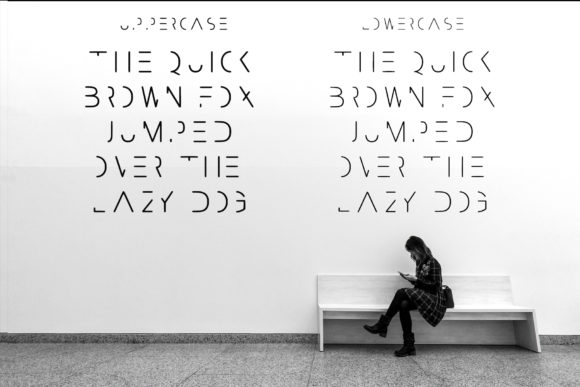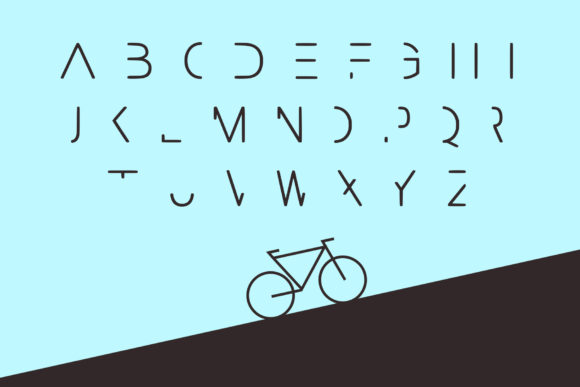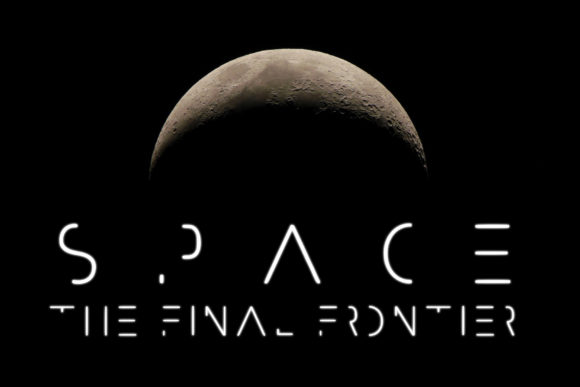
The Futuristic Charm of Axe Font: A Designer’s Delight
I still remember the design project that led me to discover the Axe font. I was working on a futuristic branding campaign for a tech startup, and I was struggling to find the perfect font that would convey innovation and sleekness. That’s when I stumbled upon Axe, an incredibly minimalist font that evokes the look of the future. ✨ In this article, I’ll share my experience with Axe, its features, and how to make the most of it in your designs.
An Honest Review of Axe Font
What I Love About Axe Font
- ✨ Minimalist design: Axe’s clean and simple design makes it perfect for futuristic and modern designs.
- ✅ High legibility: The font’s clear lines and curves ensure that it remains readable even at small sizes.
- 💻 Versatility: Axe can be used for a wide range of design projects, from branding and advertising to digital interfaces and more.
While Axe is an excellent font, it’s not without its quirks. 🤔 Here are a few things to keep in mind:
- ⚠️ Limited glyphs: Axe has a limited number of glyphs, which may not be sufficient for projects that require a wide range of special characters.
- ⚠️ No bold weights: Axe only comes in regular and light weights, which may not provide enough contrast for certain designs.
- Experiment with OpenType features, such as Stylistic Alternates, to create unique variations of the font.
The Designer Inspiration Behind Axe Font
Axe font was designed with the goal of creating a clean, modern, and highly legible font that’s perfect for digital interfaces. The designer drew inspiration from futuristic design trends and aimed to create a font that’s both minimalist and highly expressive. 💻
Q: What is Axe font?
A: Axe font is a minimalist sans-serif font designed for digital interfaces and modern designs.
Q: What are some common uses for Axe font?
A: Axe font is commonly used for branding, advertising, digital interfaces, and other modern design projects.